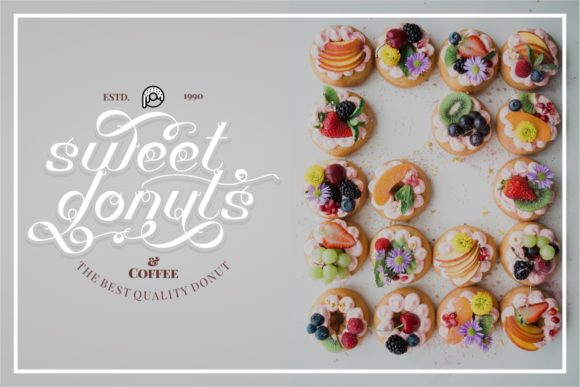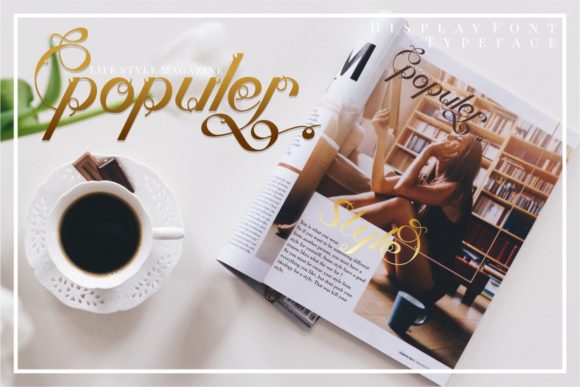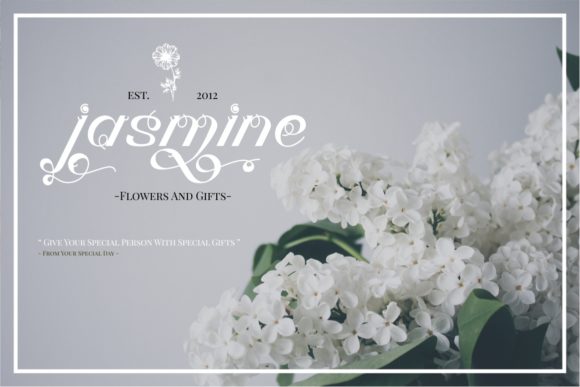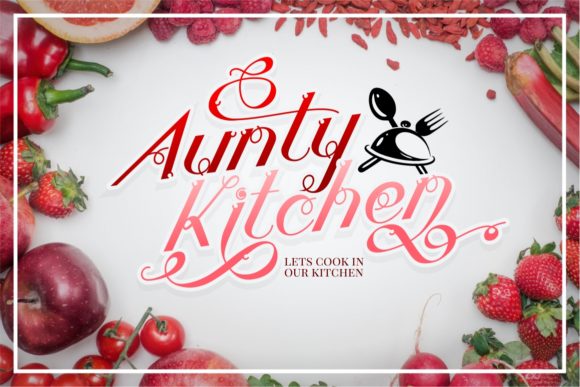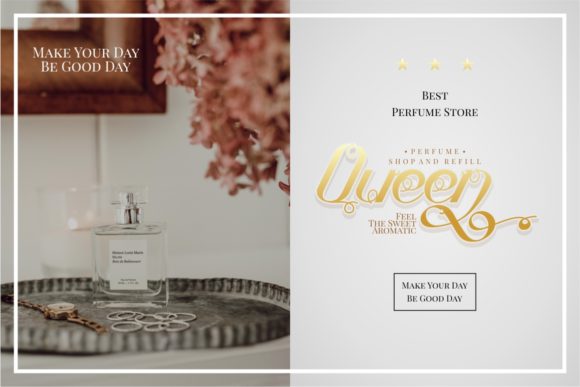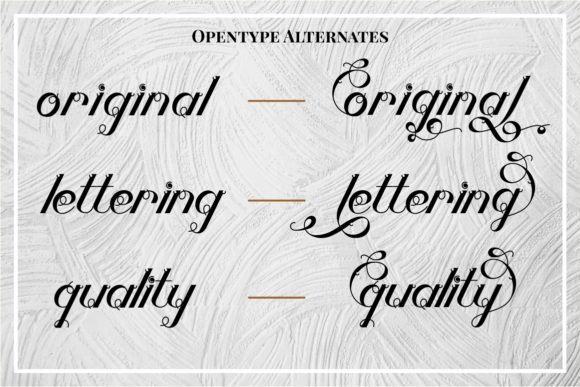
Bornena Font: Elevate Your Designs with a Touch of Elegance
Bornena is a sweet and delicious script featuring lovely swashes. It will add a delicate feel to any design idea! If you’re a designer or crafter looking for a font that exudes elegance and sophistication, look no further than Bornena. In this article, we’ll dive into the world of Bornena Font, exploring its features, benefits, and uses.
What is Bornena Font?
Bornena Font is a beautiful script font that boasts a range of lovely swashes, perfect for adding a touch of whimsy and charm to your designs. Its delicate feel makes it an ideal choice for projects that require a sense of elegance and refinement. Whether you’re working on a logo, branding materials, or craft projects, Bornena Font is sure to impress.
Key Features of Bornena Font
- Sweet and Delicious Script: Bornena Font features a beautiful, flowing script that’s perfect for adding a touch of sweetness to your designs.
- Lovely Swashes: The font comes with a range of lovely swashes that can be used to add a decorative touch to your designs.
- Delicate Feel: Bornena Font has a delicate feel that’s perfect for designs that require a sense of elegance and refinement.
- Elegant and Sophisticated: The font’s elegant and sophisticated style makes it perfect for high-end designs and luxury brands.
Benefits of Using Bornena Font
So, why should you choose Bornena Font for your design projects? Here are just a few benefits of using this beautiful font:
- Adds a Touch of Elegance: Bornena Font adds a touch of elegance and sophistication to any design, making it perfect for high-end brands and luxury projects.
- Versatile: The font is versatile and can be used for a range of design projects, from logos and branding materials to craft projects and more.
- Easy to Read: Despite its delicate feel, Bornena Font is easy to read, making it perfect for designs that require a clear and concise message.
- Unique and Creative: The font’s unique and creative style sets it apart from more traditional fonts, making it perfect for designers who want to add a touch of personality to their designs.
Uses for Bornena Font
Bornena Font is perfect for a range of design projects, including:
- Logo Design: The font’s elegant and sophisticated style makes it perfect for logo design, particularly for high-end brands and luxury companies.
- Branding Materials: Bornena Font can be used to create a range of branding materials, from business cards and letterheads to brochures and more.
- Craft Projects: The font’s delicate feel and whimsical swashes make it perfect for craft projects, such as scrapbooking, card making, and more.
- Wedding Design: Bornena Font is also perfect for wedding design, including invitations, wedding stationery, and more.
Tips for Using Bornena Font
Here are a few tips for using Bornena Font in your design projects:
- Use it Sparingly: Bornena Font is a delicate font, so use it sparingly to avoid overwhelming your design.
- Pair it with Other Fonts: The font pairs well with other fonts, so experiment with different combinations to find the perfect look for your design.
- Experiment with Swashes: The font’s swashes are a key feature, so experiment with different swashes to add a touch of personality to your design.
Bornena Font is a beautiful and elegant script font that’s perfect for designers and crafters looking to add a touch of sophistication to their designs. With its delicate feel, lovely swashes, and versatile style, Bornena Font is sure to impress. Whether you’re working on a logo, branding materials, or craft projects, Bornena Font is a great choice. So why not give it a try and see the difference it can make in your designs?